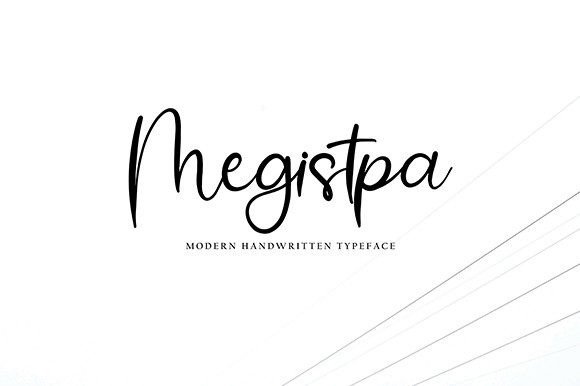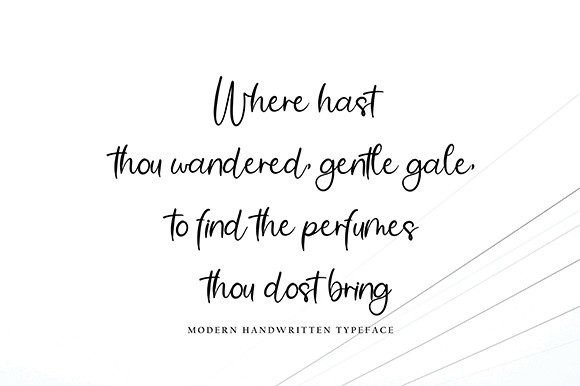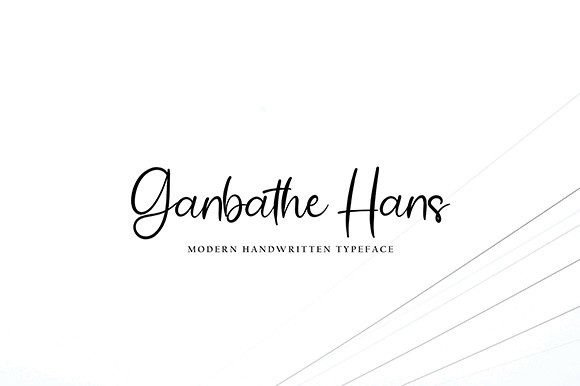
About Megistpa Font
Megistpa is a delicate, elegant, and flowing handwritten font. It has beautiful and well-balanced characters and as a result, it matches a wide pool of designs.